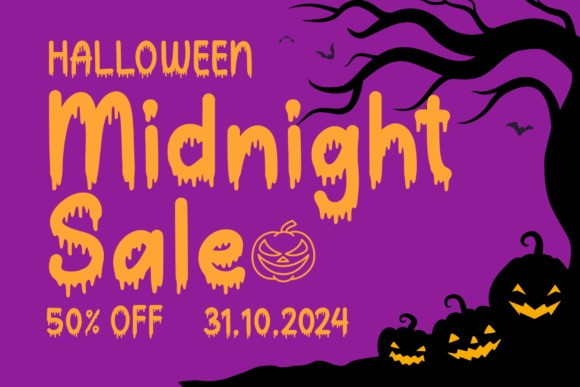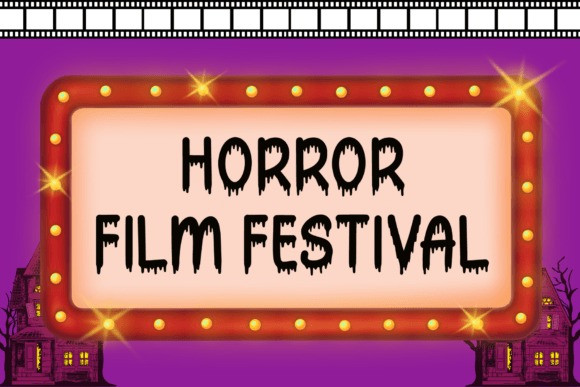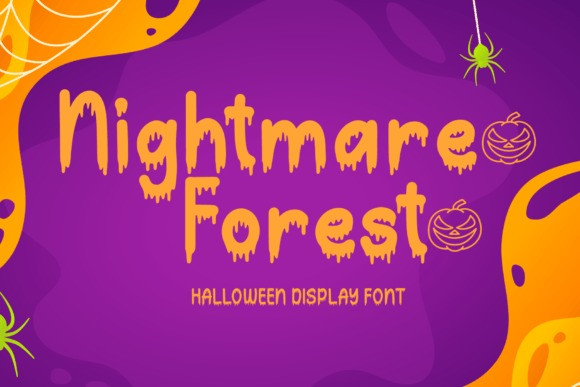
Nightmare Forest Font is a spooky Halloween font with a dripping style. This display font is ideal for creating chilling and eye-catching designs for Halloween-themed posters, apparel, embroidery, crafts, and other festive applications.
The features are uppercase, lowercase, numeral, punctuation & symbol, multilingual support, PUA encoded.